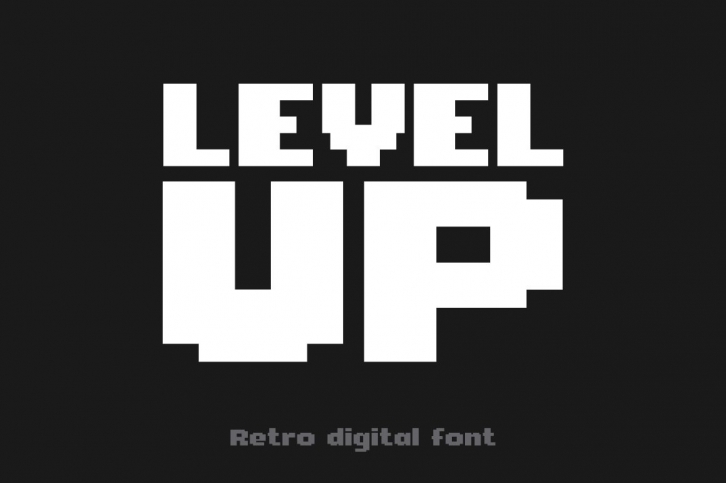
Geometric font with authentic digital feeling.
- Basic latin character set
- Captial letters
- Lowercase letters
- Numerals
- Currency (USD, EUR)
- Punctuation and some special characters